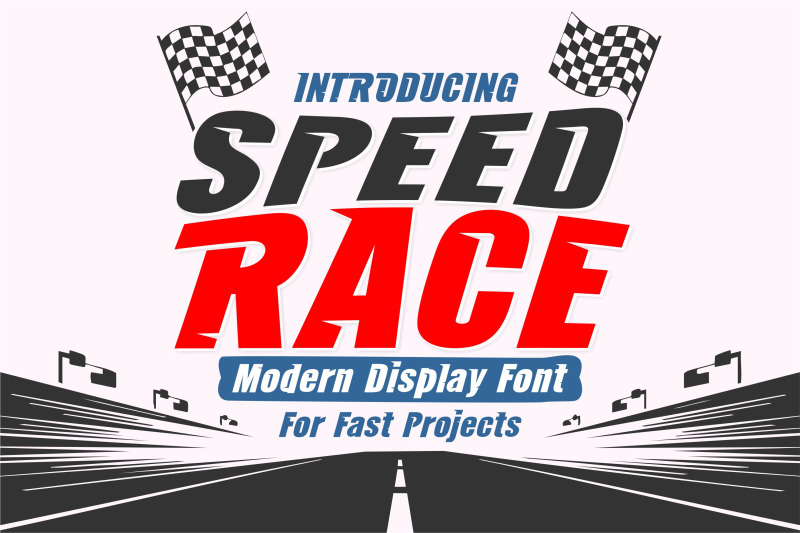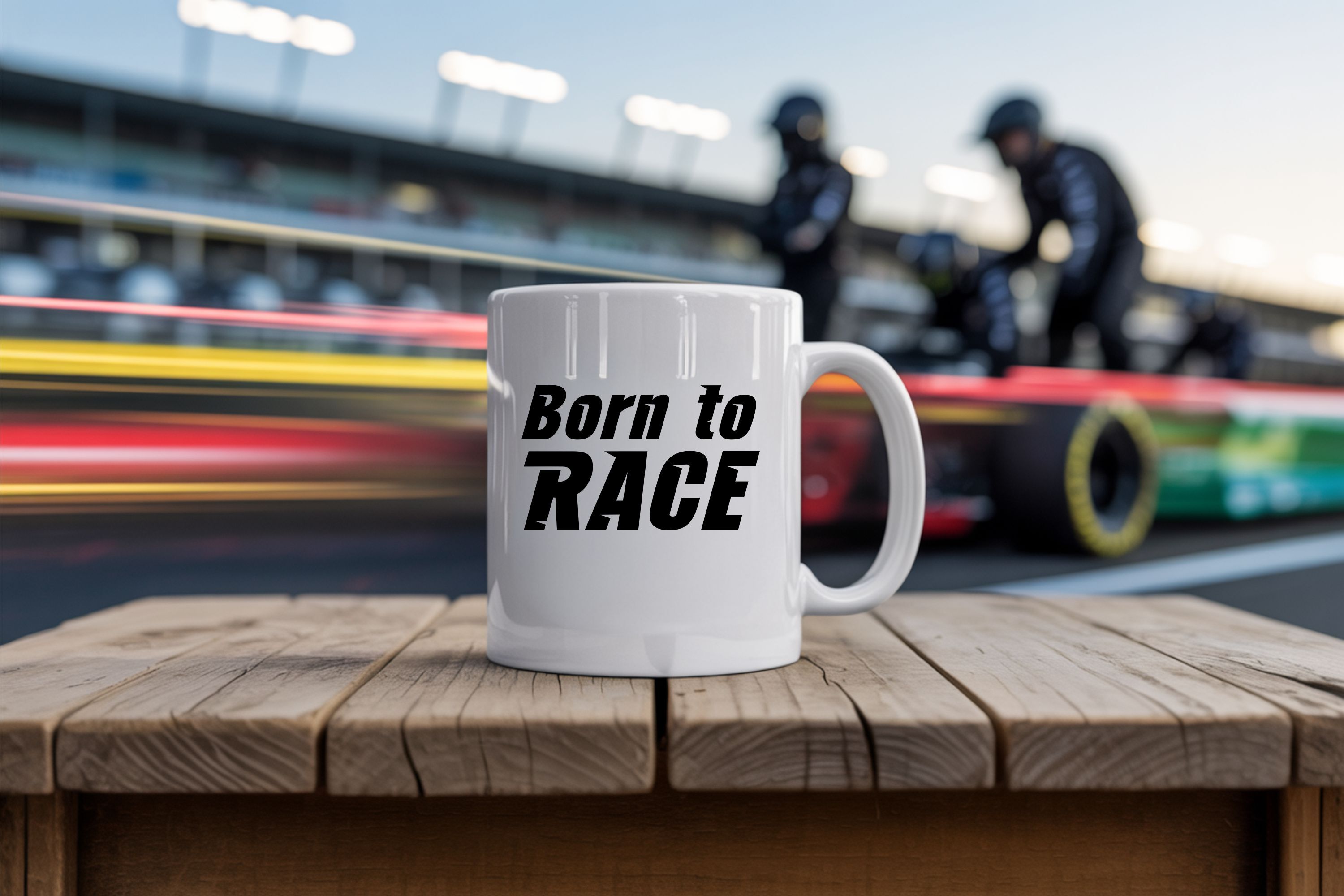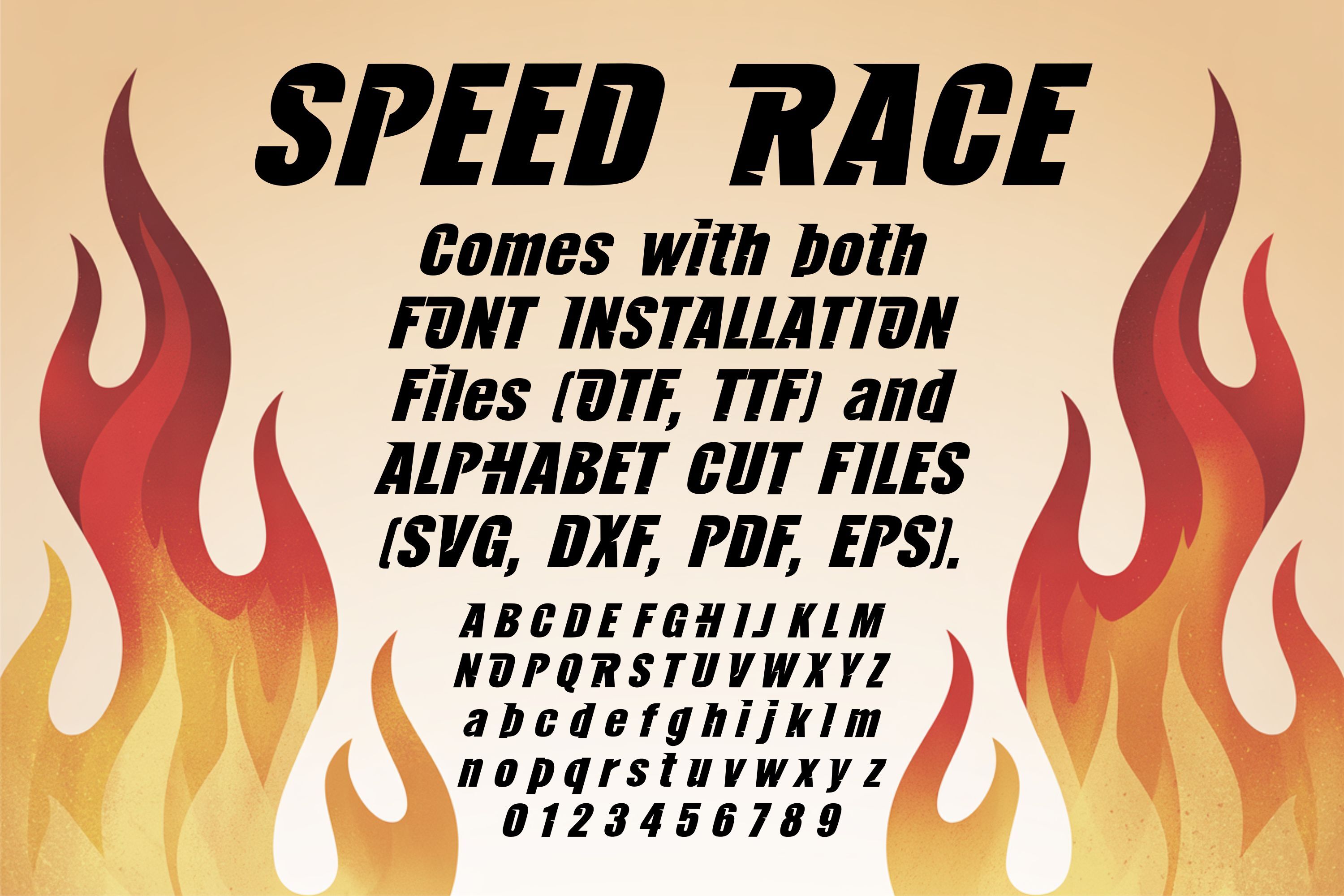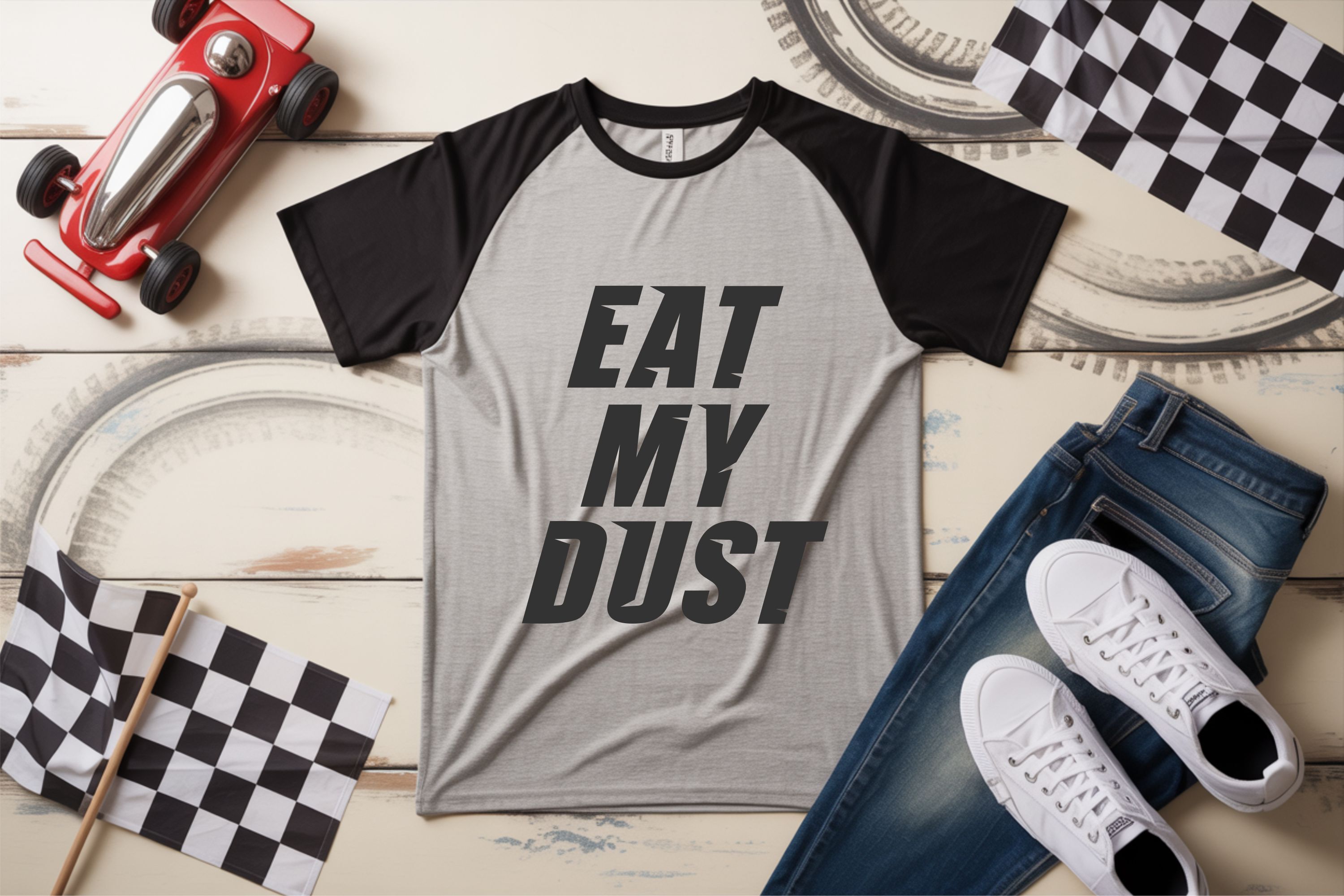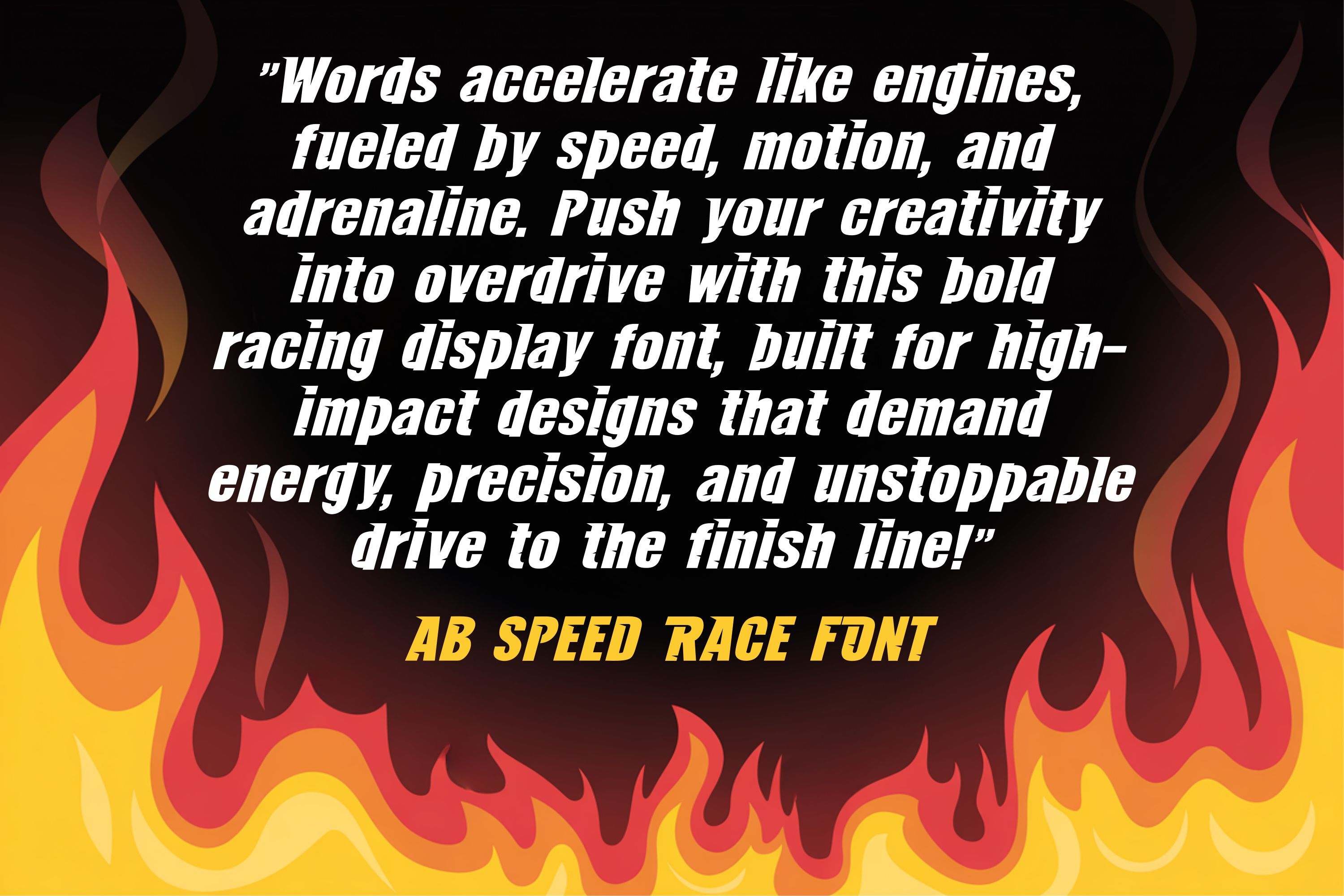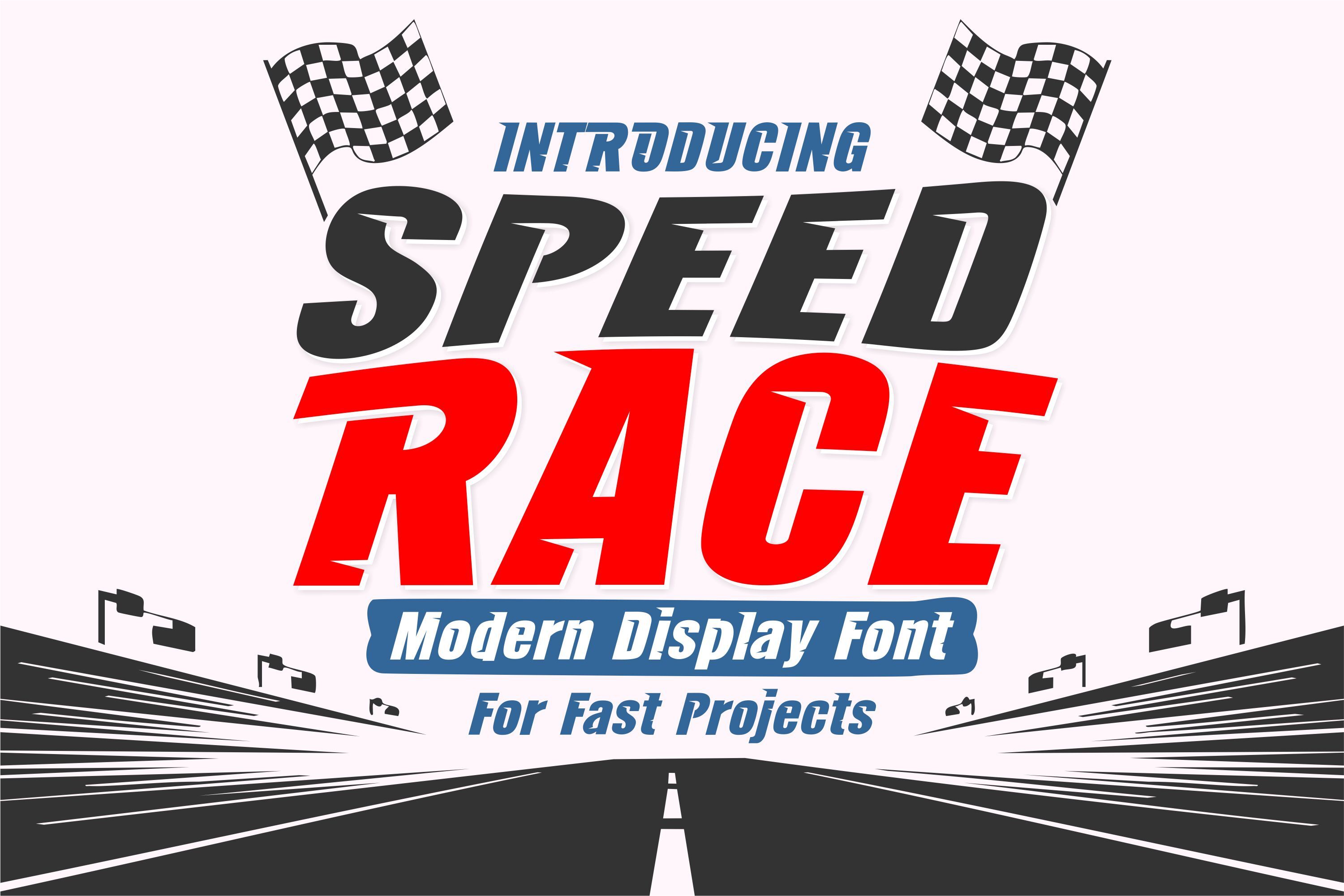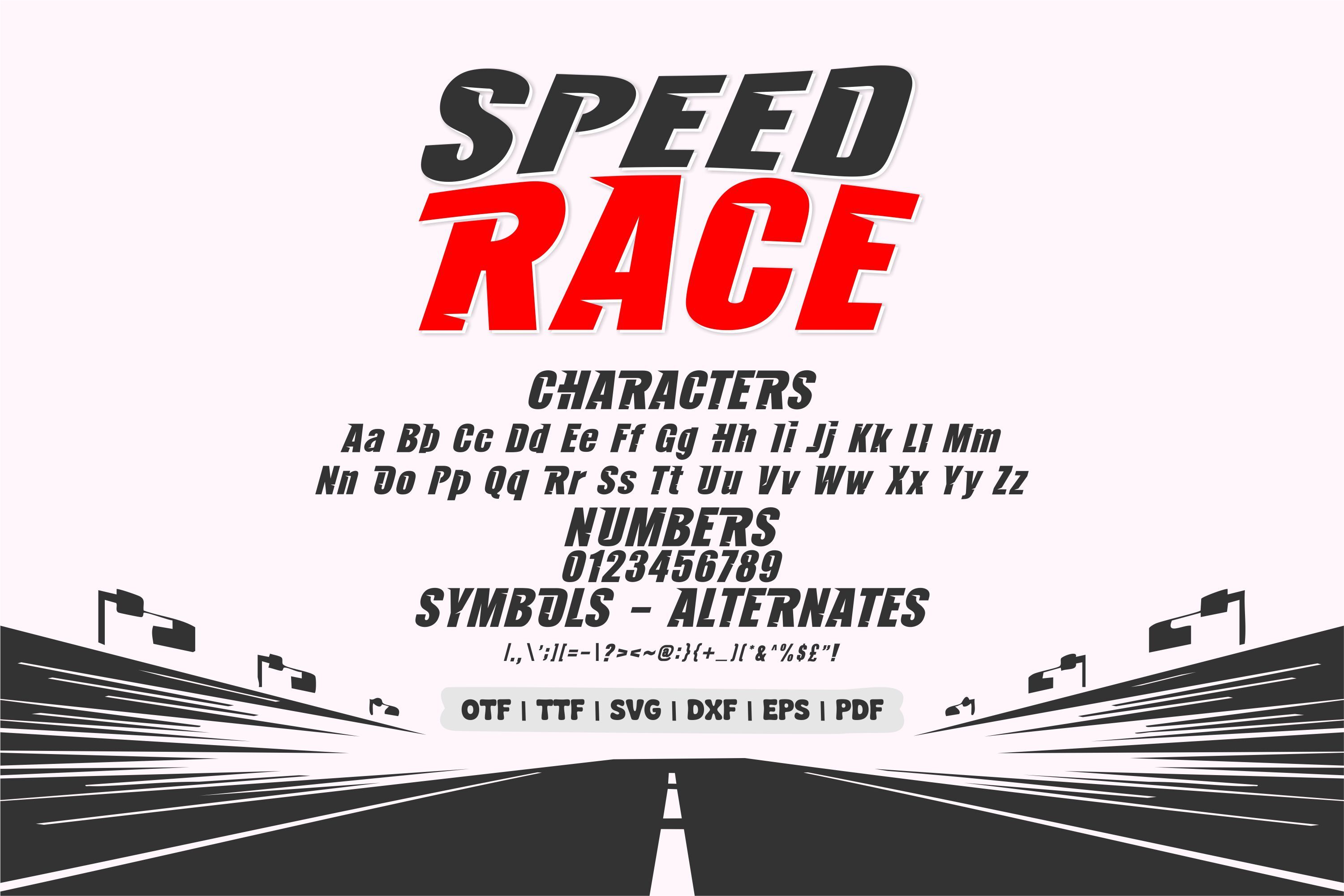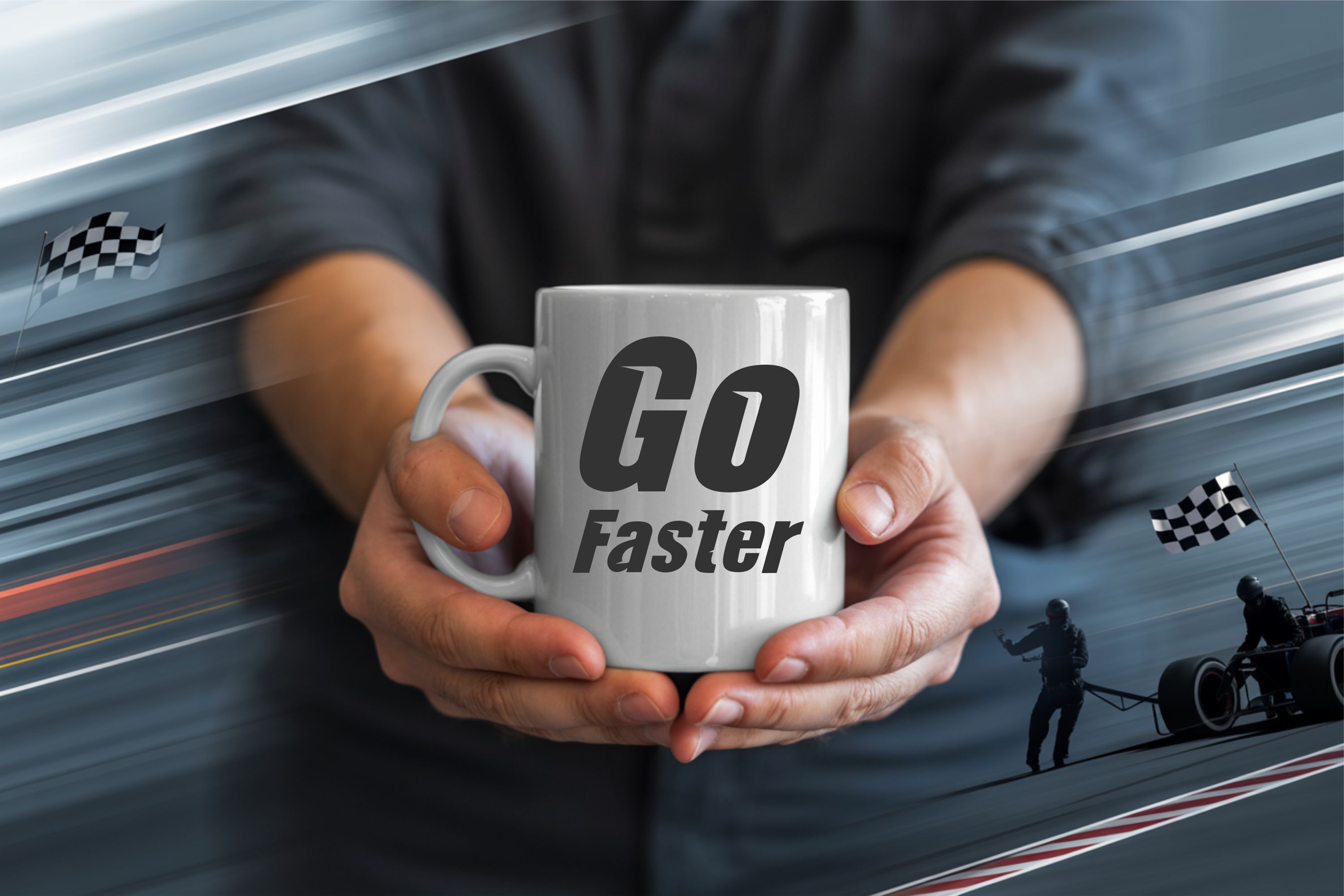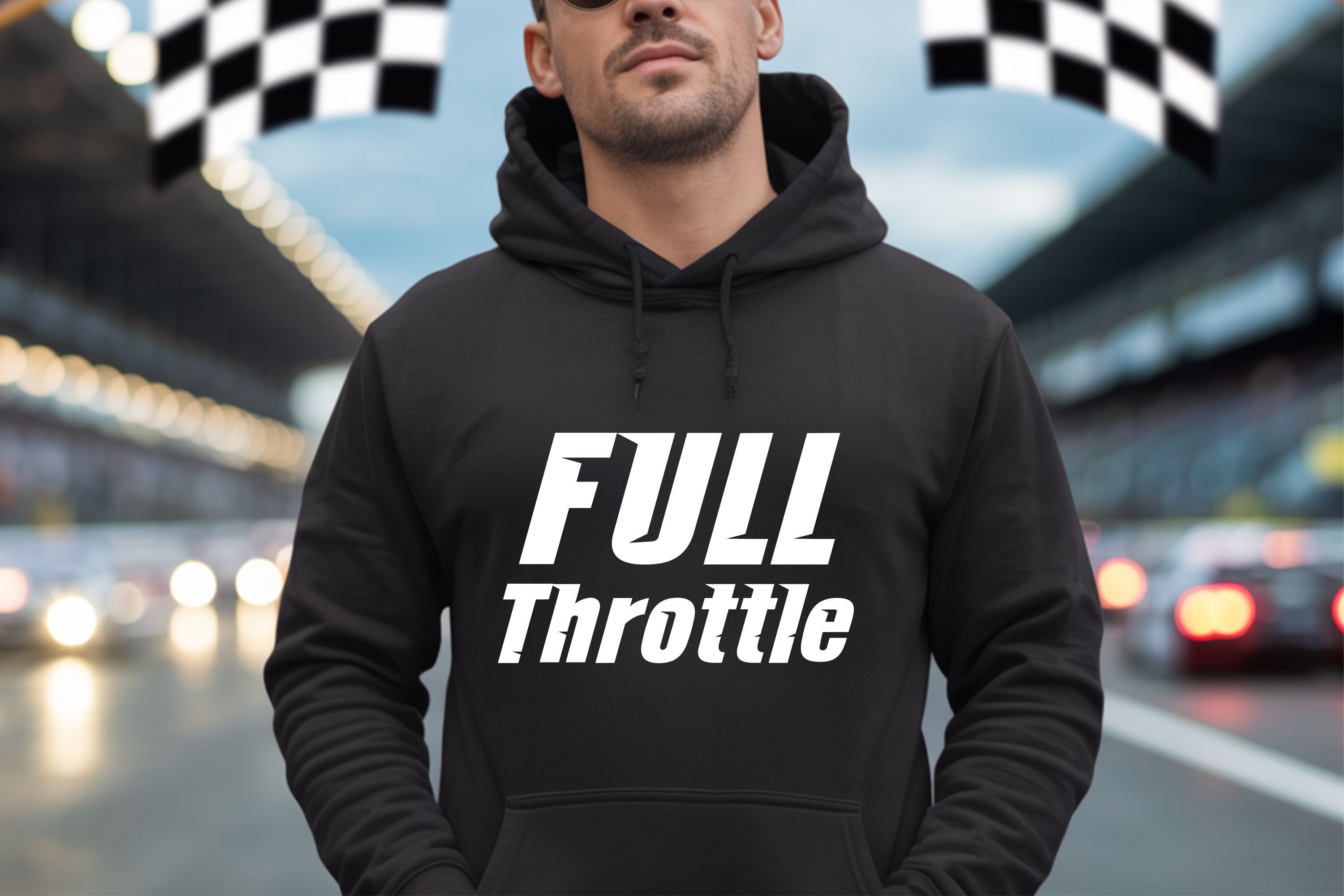
Speed Race Font: Bold Racing Alphabet Letters (OTF, TTF, SVG)
AB Speed Race is a bold racing-inspired font that captures the excitement of motorsport and speed culture. With strong lines, dynamic energy, and a sporty style, this font is perfect for projects that need impact and motion. Whether you are designing car-themed T-shirts, racing team posters, sports logos, or Cricut and Silhouette crafts, AB Speed Race brings a fast-paced, competitive edge to your designs. The font includes a full alphabet (A–Z, a–z), numbers (0–9), and punctuation, making it versatile for all types of creative work. From racing banners to custom decals, kids’ racing birthday invitations to wall signs, this font is a must-have for anyone who loves the thrill of the track. Its bold styling ensures that your text will always stand out, whether printed on apparel, cut with vinyl, or used in digital artwork.